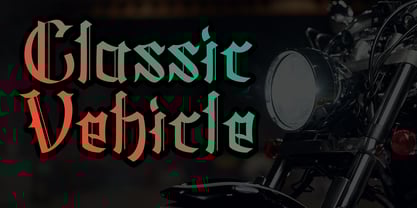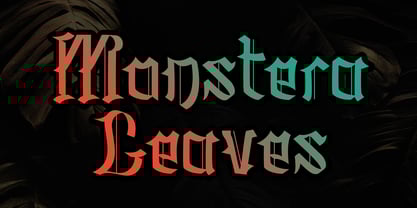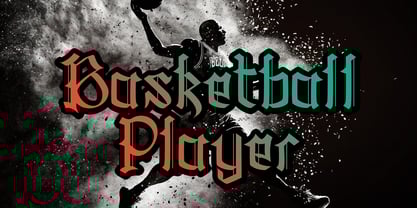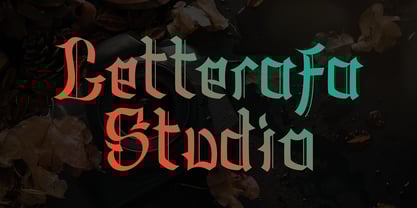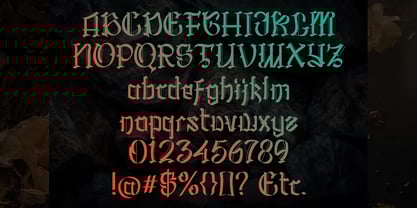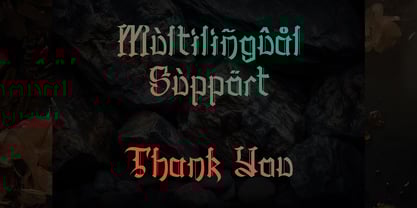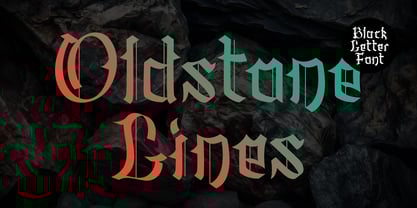
Oldstone Lines
Oldstone Lines is a bold Blackletter-style typeface that combines traditional gothic forms. Its sharp strokes, dramatic curves, and medieval-inspired letter structures create a powerful and distinguished visual presence. Designed for impactful titles, branding, posters, and thematic designs, this font delivers an expressive and historic atmosphere while maintaining strong readability. The gradient presentation adds a contemporary touch, making it suitable for both classic and modern creative projects.